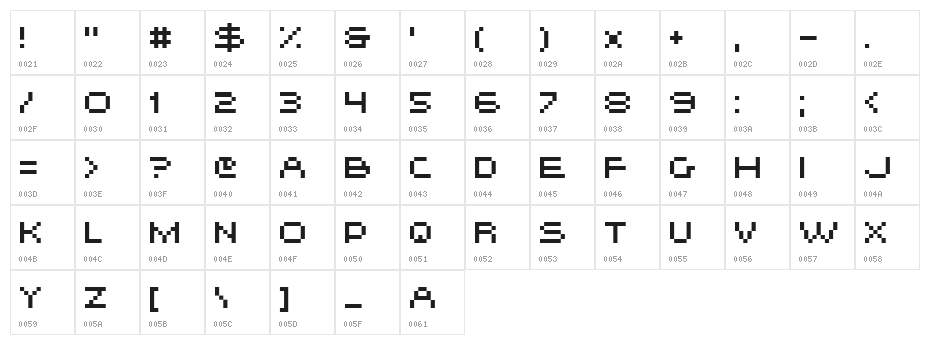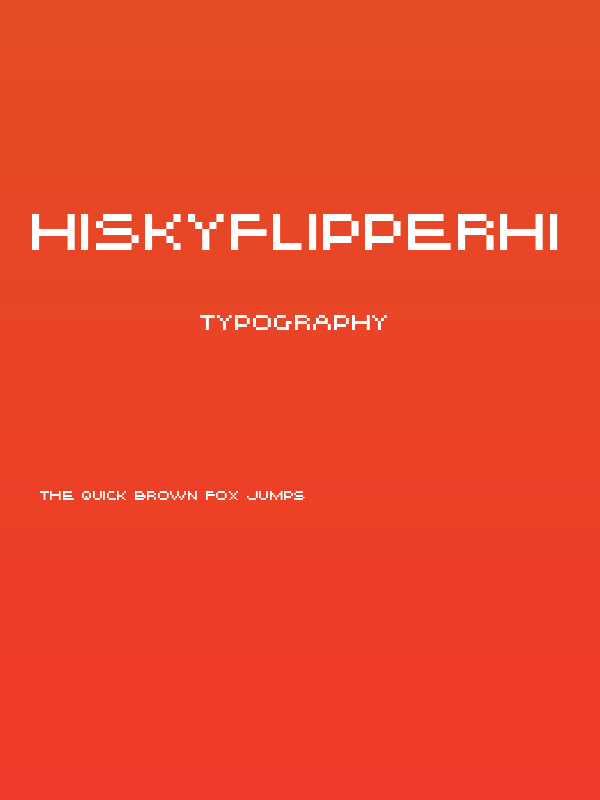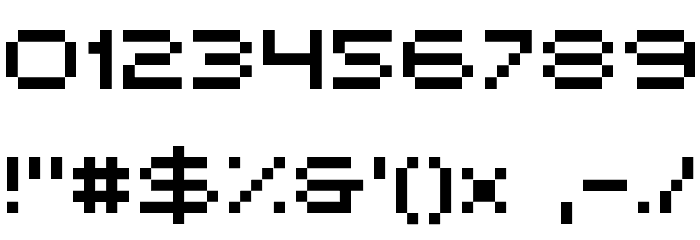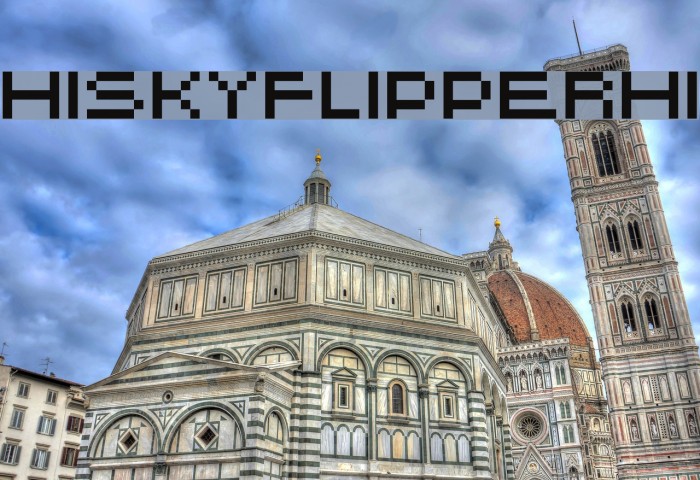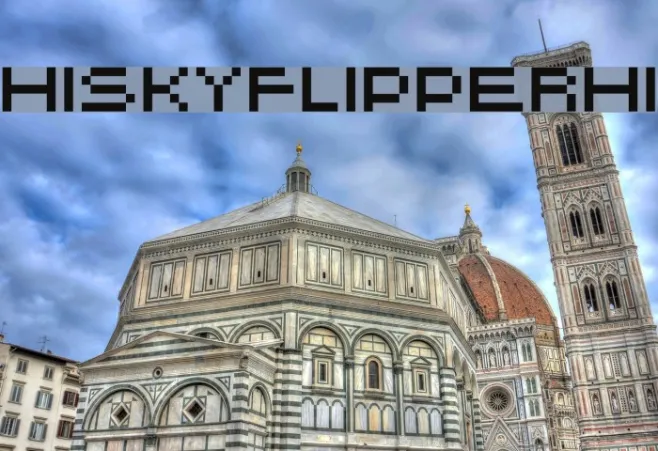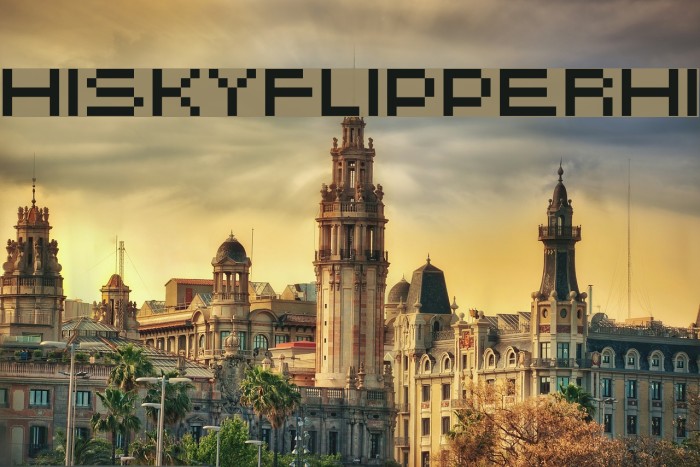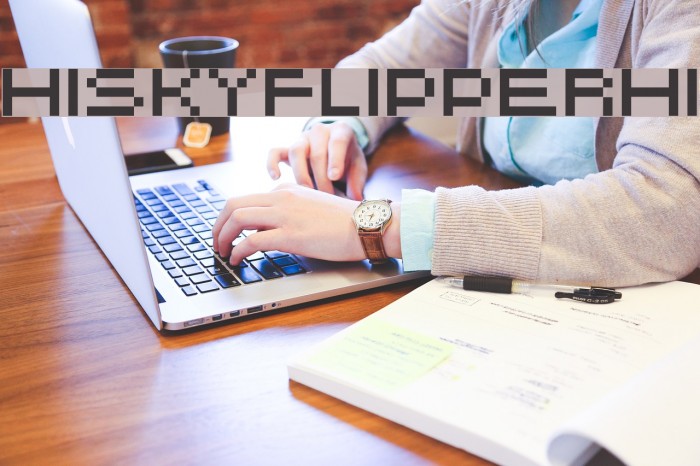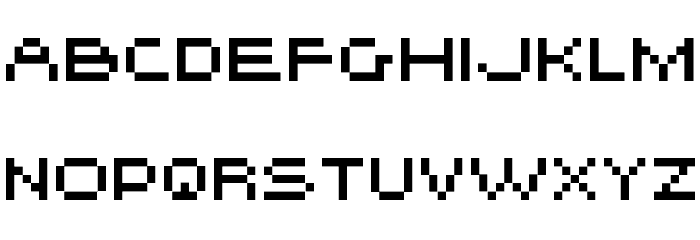
HISKYFLIPPERHI Font
HISKYFLIPPERHI Description
This font features a pixelated, blocky design reminiscent of early digital displays and retro video games. Each character is constructed with a grid-like precision, giving it a distinctly digital and geometric appearance. The uniformity in height and width across the characters contributes to a cohesive and structured look. The font is highly legible, with clear distinctions between each letter and number, making it suitable for digital interfaces or designs that aim to evoke a sense of nostalgia. The special characters maintain the same pixelated style, ensuring consistency throughout the character set.
| Overall Style | Retro, Digital |
| Use Case | Headlines, Logos, Digital interfaces |
| Proposed Projects | Ideal for retro-themed video games, digital art projects, tech-related branding, and nostalgic design pieces. |